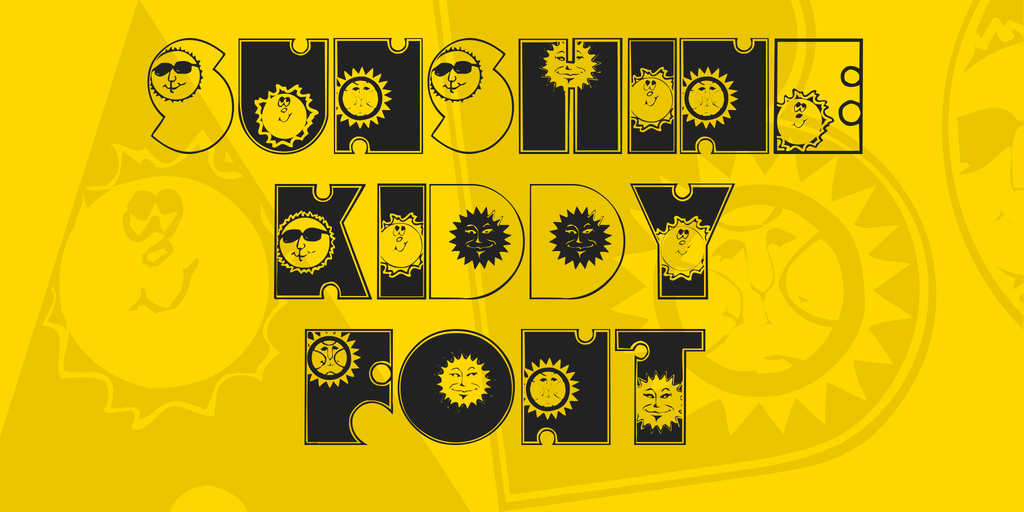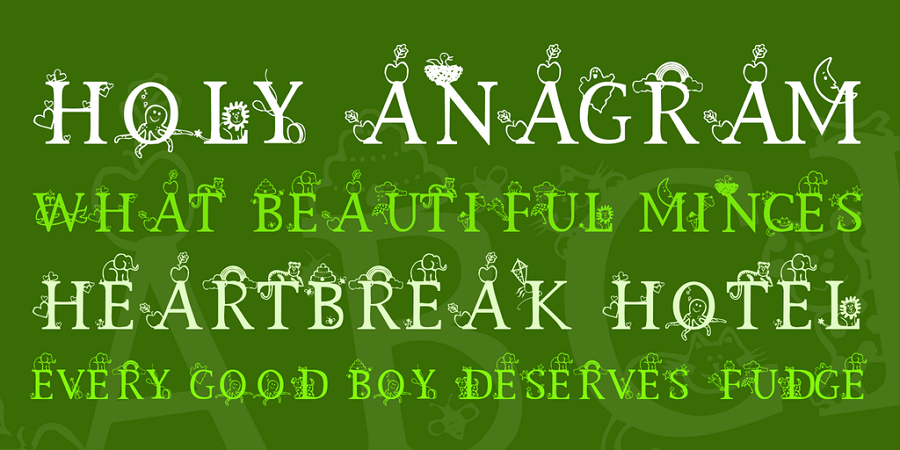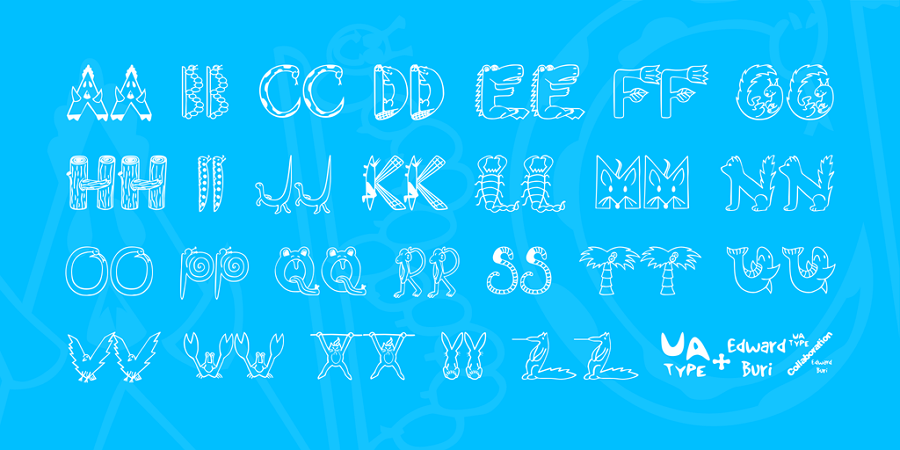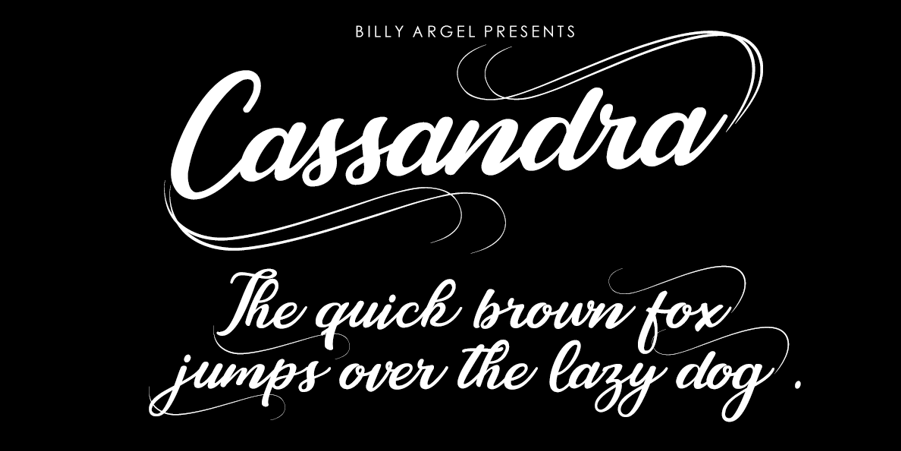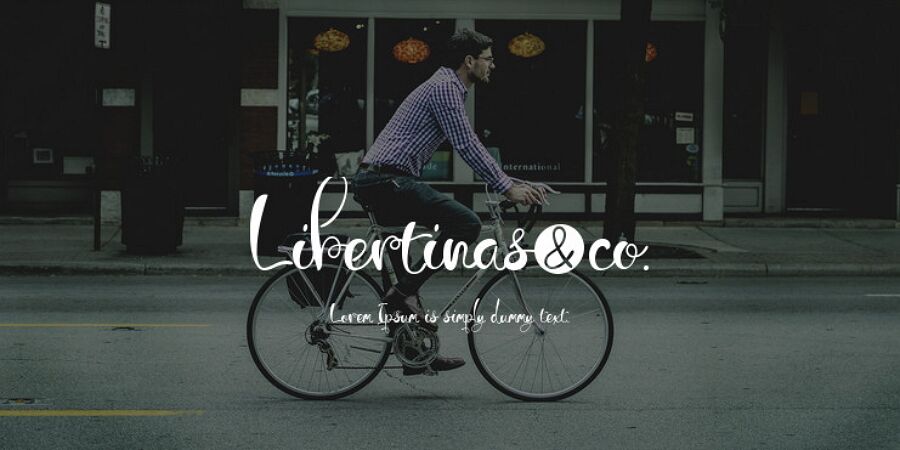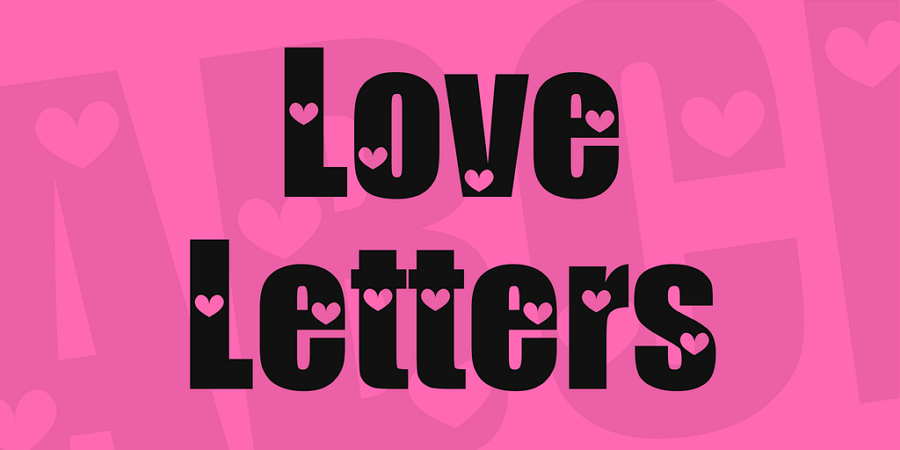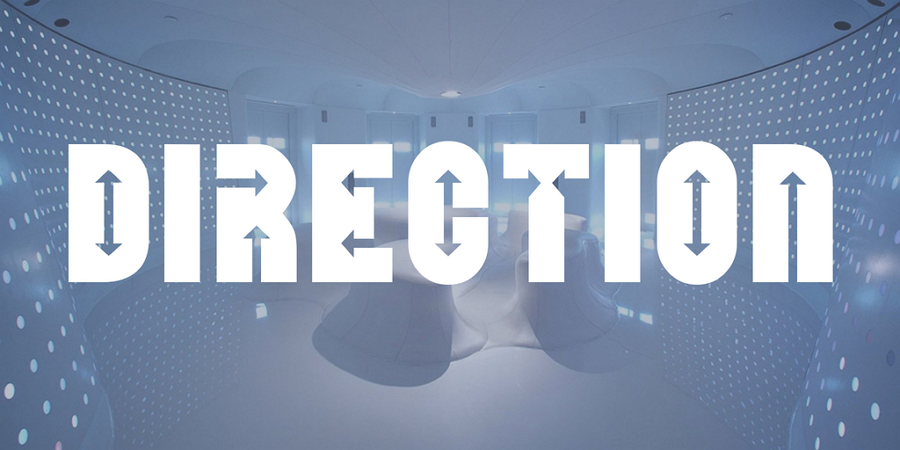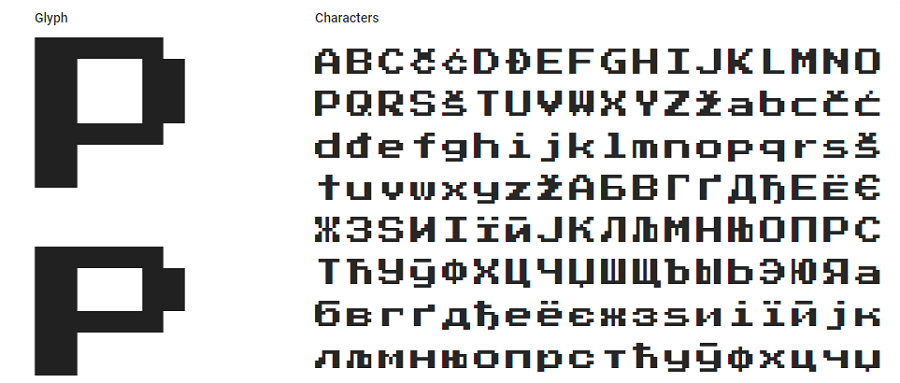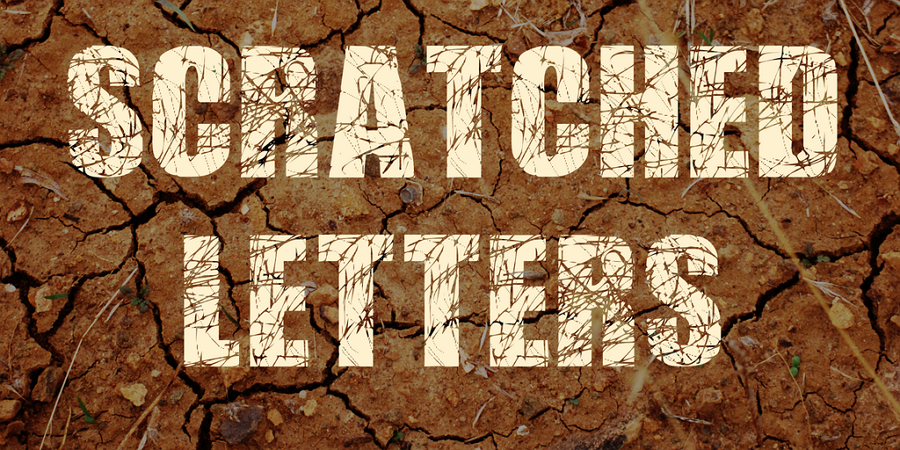
A playful and creative font doesn’t just help your website, app, or digital project stand out — it instantly grabs attention and adds a touch of joy and personality to your design. Whether you’re building a cheerful brand, a children’s app, or a fun social media campaign, fun fonts can make a big difference by making your typography lively, memorable, and engaging.
To help designers bring their ideas to life, the Designe-R team has curated a handpicked collection of the best free fun fonts. This selection includes handwritten scripts, cartoon-style fonts, quirky and bold letterforms, and even some excellent Google Fonts alternatives. Each font is carefully chosen to provide versatility, readability, and a creative edge for both web and print projects.
✨ Why these fun fonts are a must-have:
- Wide variety of styles — from hand-drawn lettering to playful display fonts, perfect for logos, posters, invitations, and social media graphics.
- Boosts creativity and engagement — adds energy and personality to your branding, advertising, and digital design.
- Professional quality — crafted to look polished yet whimsical, making them ideal for both personal and commercial projects.
By incorporating these fun fonts into your projects, you can enhance visual hierarchy, improve readability, and ensure your designs stand out from the crowd. These fonts are perfect for creating cheerful, approachable, and creative designs, whether you’re designing web pages, app interfaces, packaging, or marketing materials.
1. Butterfly
2. DK Lemon Yellow Sun
3. Cassandra
4. Libertinas
5. Julia
6. Free Press Start 2P
7. Monoton
8. Ruge Boogie
9. Orbitron
10. Fredericka the Great
11. Groovy Ghosties
12. Eyesis
13. Cheese Burga
14. Zoombieland
15. Yummy Donuts
16. Block Christmas
17. Gretoon Highlight Bold
18. Thorn Bold
19. Mister Vampire
20. Vraoum
21. Anagram
22. Scratched Letter
23. Love Box
24. Chock A Black NF
25. Love Letter
26. Direction
27. Sunshine Kiddy Fun
28. Kids Alphabet Fun
29. Pet Shop Fun
30. EDB Wild Things Fun